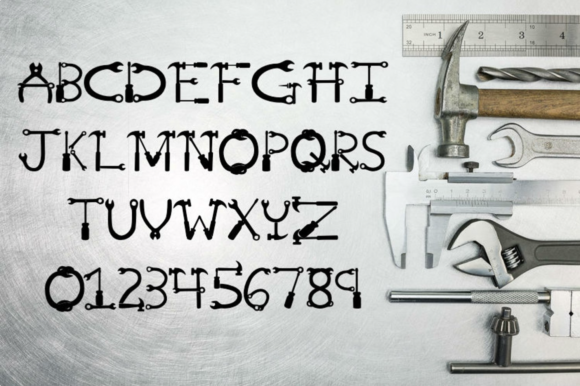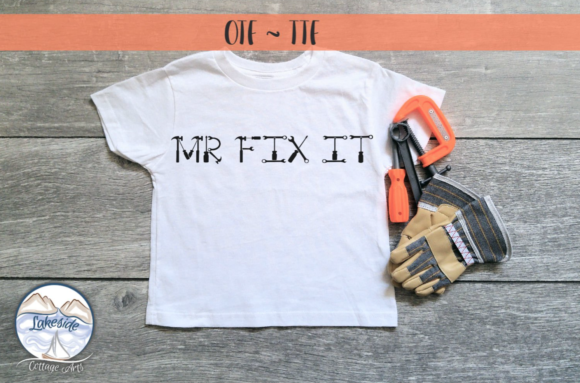
Introduction to Mr. Fix It Font
Who hasn’t been in a situation where they’re brainstorming the perfect design for a DIY project, only to be stuck on finding the right font to bring their idea to life? The frustration of scrolling through endless options, only to settle for something that just doesn’t quite fit, is all too familiar. But what if you could have a font that’s specifically designed with crafters and handy individuals in mind? Enter the Mr. Fix It Font, a game-changing tool alphabet that’s about to revolutionize your creative process.
As a valuable resource for designers, the Mr. Fix It Font offers a unique combination of functionality and style, making it an essential addition to any design toolkit. With its hand-drawn design and minimal nodes, this font is perfect for creating high-quality designs with a transparent background, making it ideal for projects that require a touch of sophistication.
Key Features of Mr. Fix It Font
- High-quality design for creative projects, ideal for use in graphic design, digital art, and other visual applications.
- Includes a transparent background, allowing for seamless integration into various design elements and backgrounds.
- Features a unique, modern design aesthetic that is perfect for a variety of creative projects, from logos and branding to digital art and typography.
- Perfect for designers and artists looking for a versatile, high-quality font that can be used in a variety of creative applications.
Honest Review: Mr. Fix It Font
As a designer, I’ve worked with my fair share of fonts, but the Mr. Fix It Font caught my attention. I was excited to dive in and see if it lived up to its promise as a reliable design resource.
First impressions are everything, and I have to say, the Mr. Fix It Font didn’t disappoint. It’s perfect for creative projects that require a touch of industrial chic, and the transparent background is a nice touch.
- High-quality design that’s perfect for modern creative projects
- Transparent background, which makes it easy to customize
- Only available in a limited number of styles and weights
- May not be suitable for all design projects (e.g. logos, headings)
- Could benefit from more language support
Overall, I’m impressed with the Mr. Fix It Font, and I’d definitely recommend it to designers who are looking for a reliable design resource. Just keep in mind its limitations, and you’ll be all set for a great design experience. ⚠️
Mr. Fix It Font is a high-quality design resource perfect for creative projects. This versatile font offers a transparent background and is available for free download, making it an ideal addition to any design arsenal.
Mr. Fix It Font is perfect for a variety of projects, including infographics, social media graphics, and presentations. Its transparent background makes it easy to combine with other design elements, while its high quality ensures a professional finish.